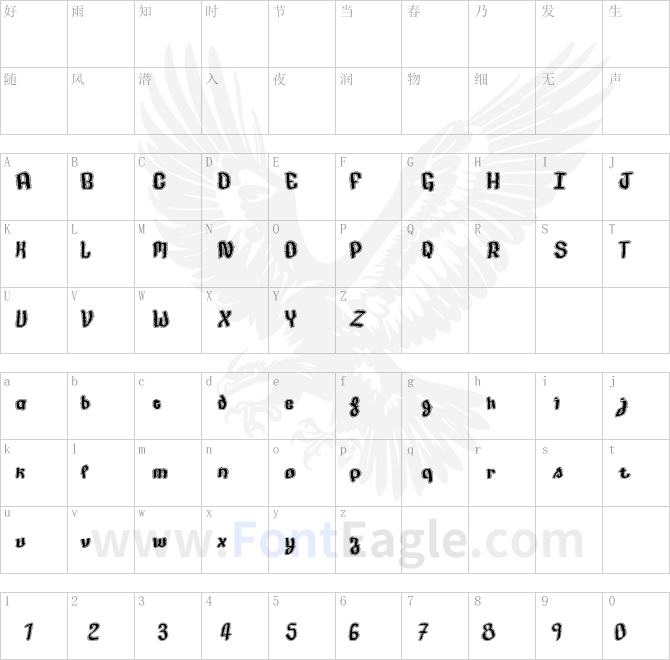
Made-in-France is a great font, widely used in graphic design, single-page menu design, poster design and other fields, and is deeply loved by designers.Made-in-France download.